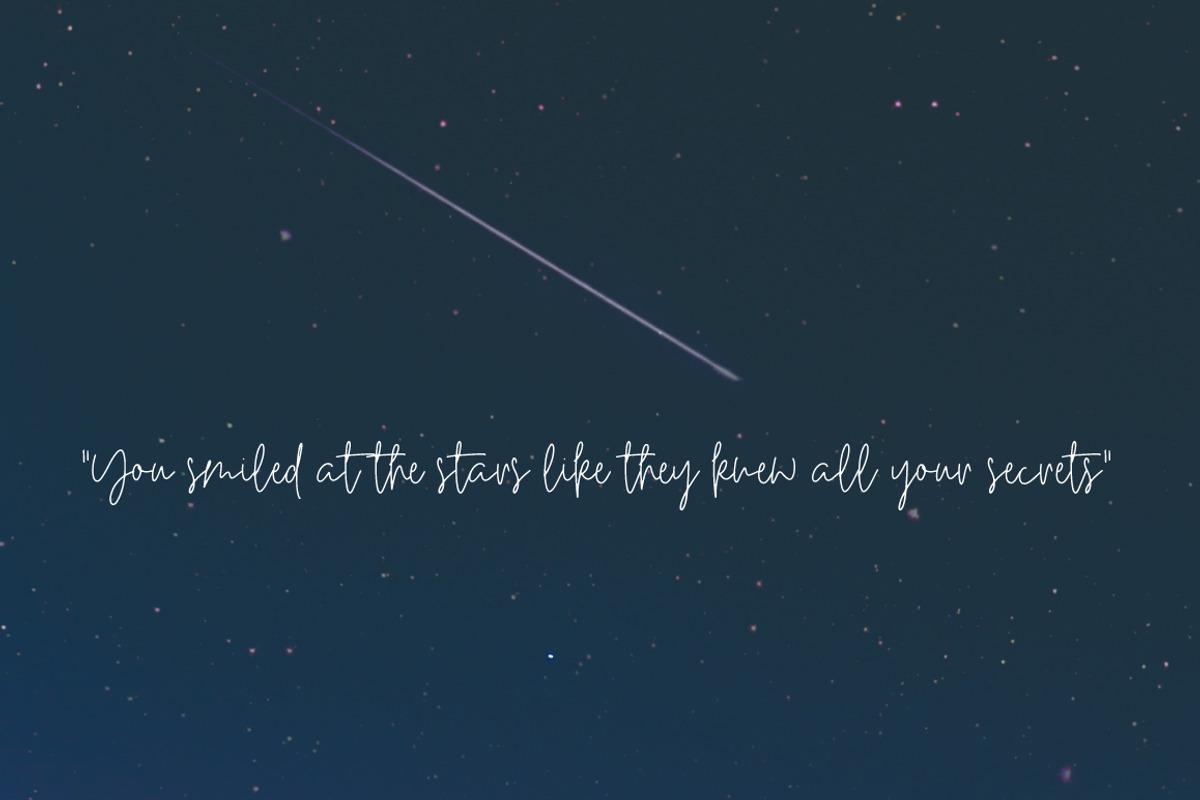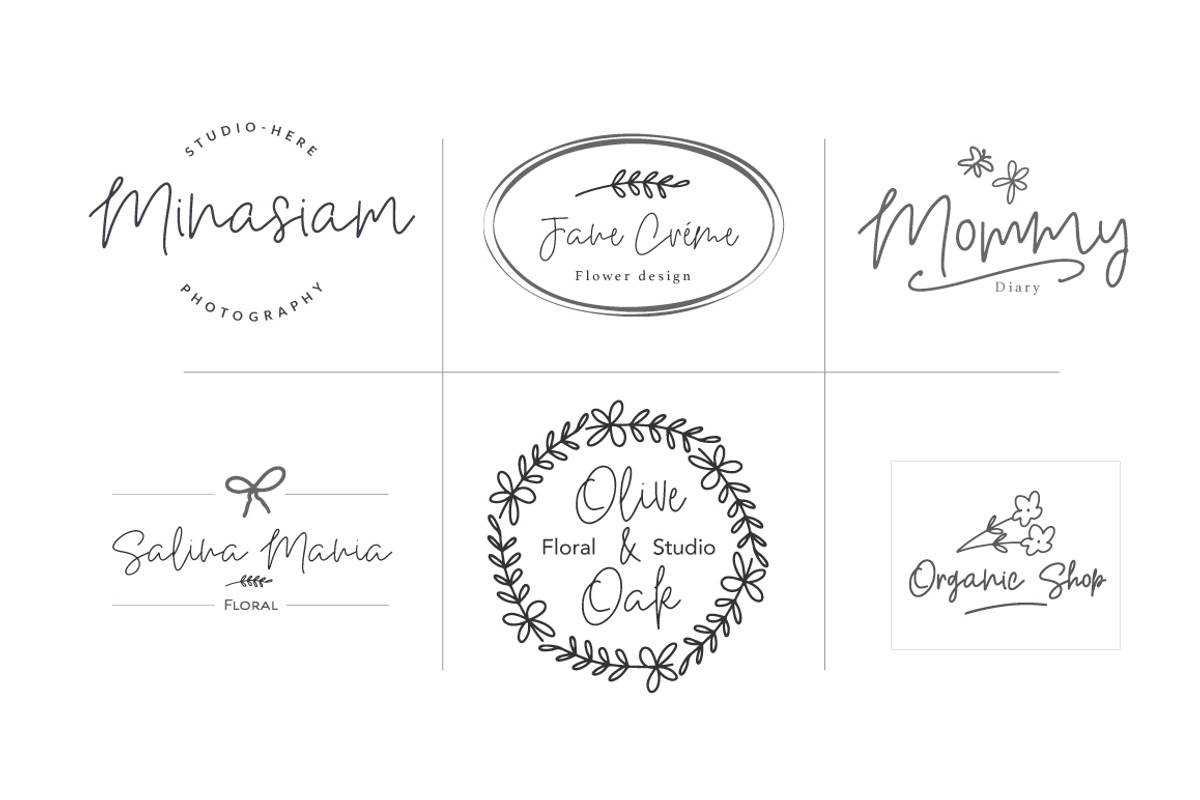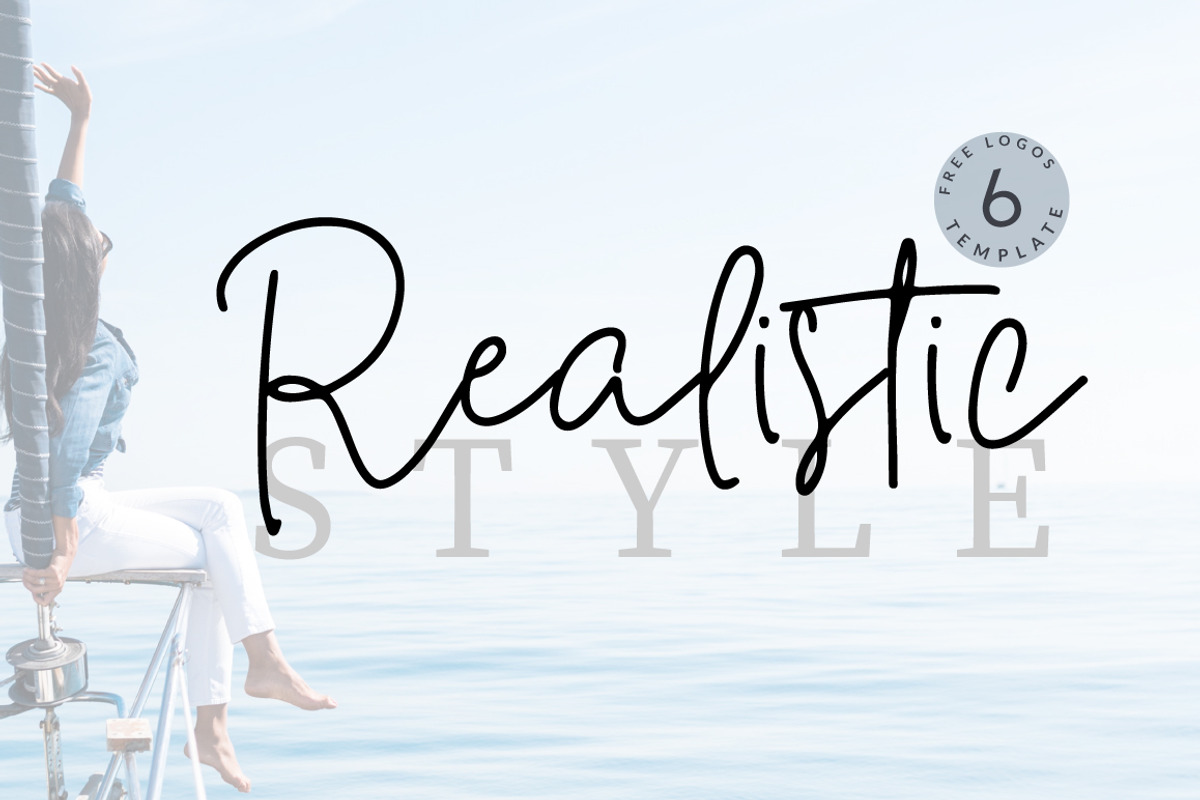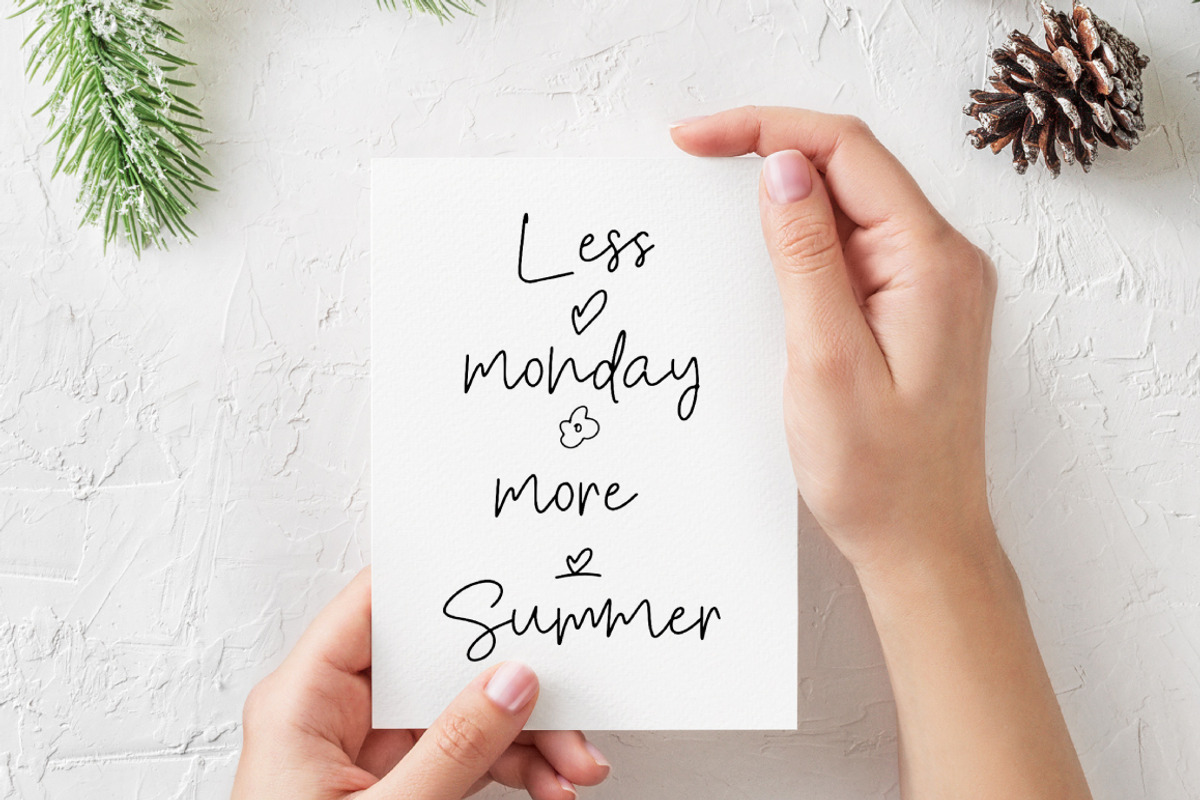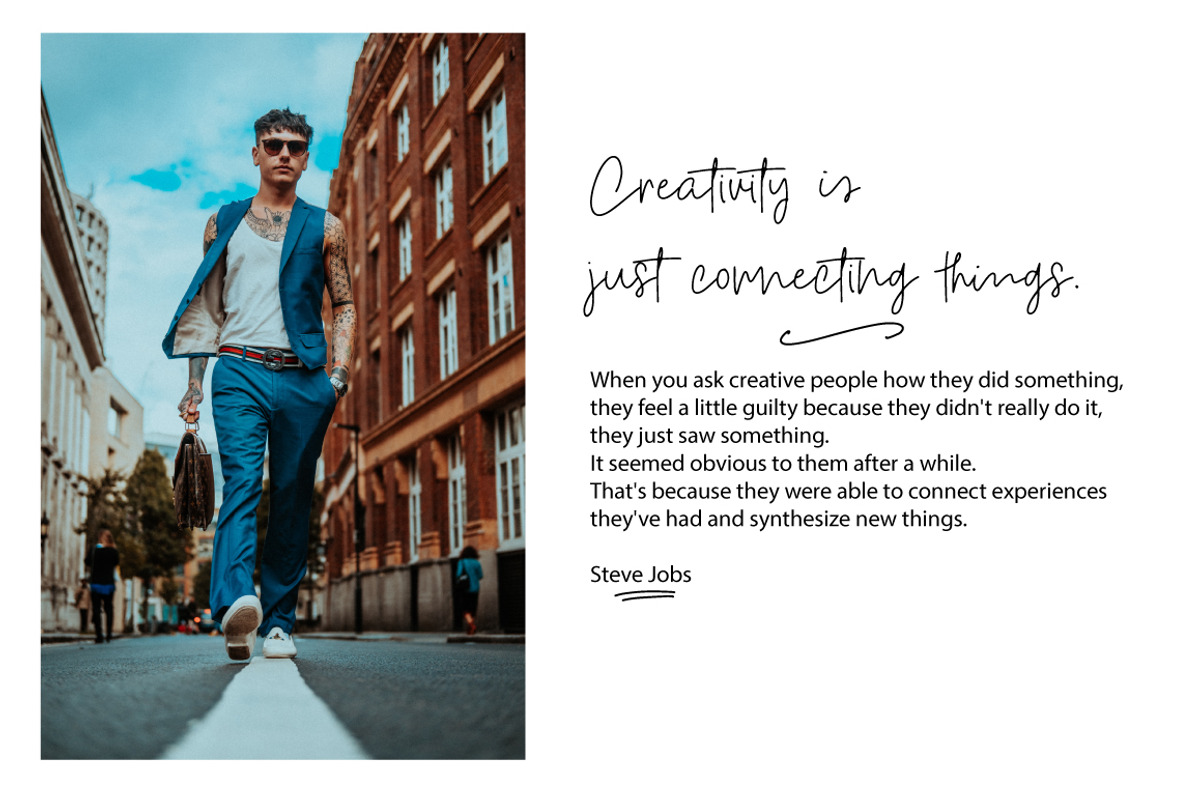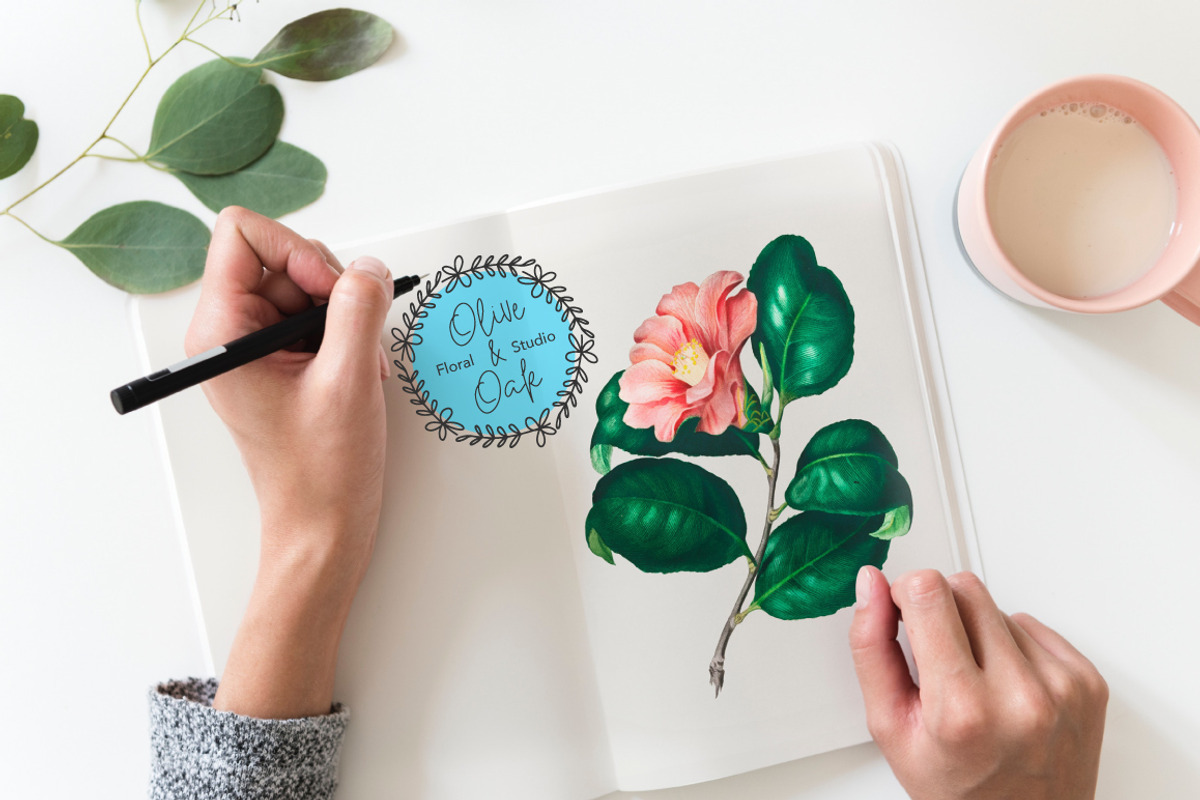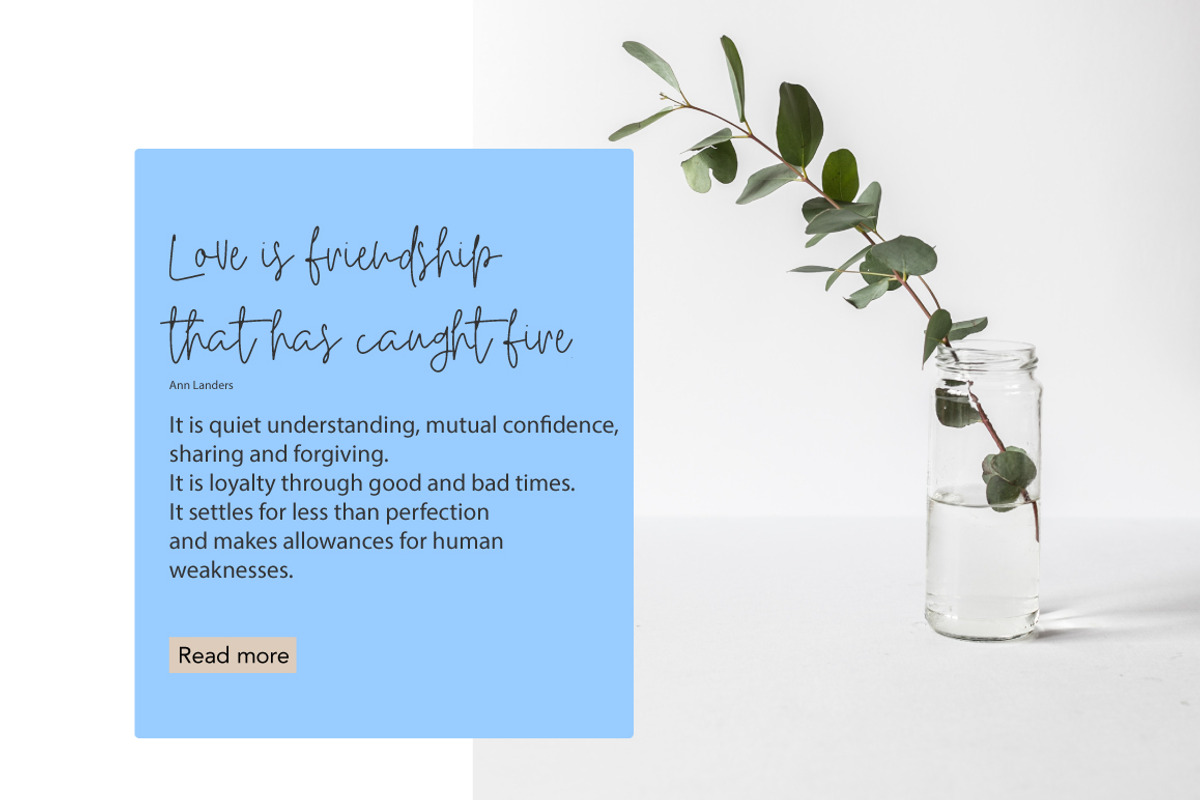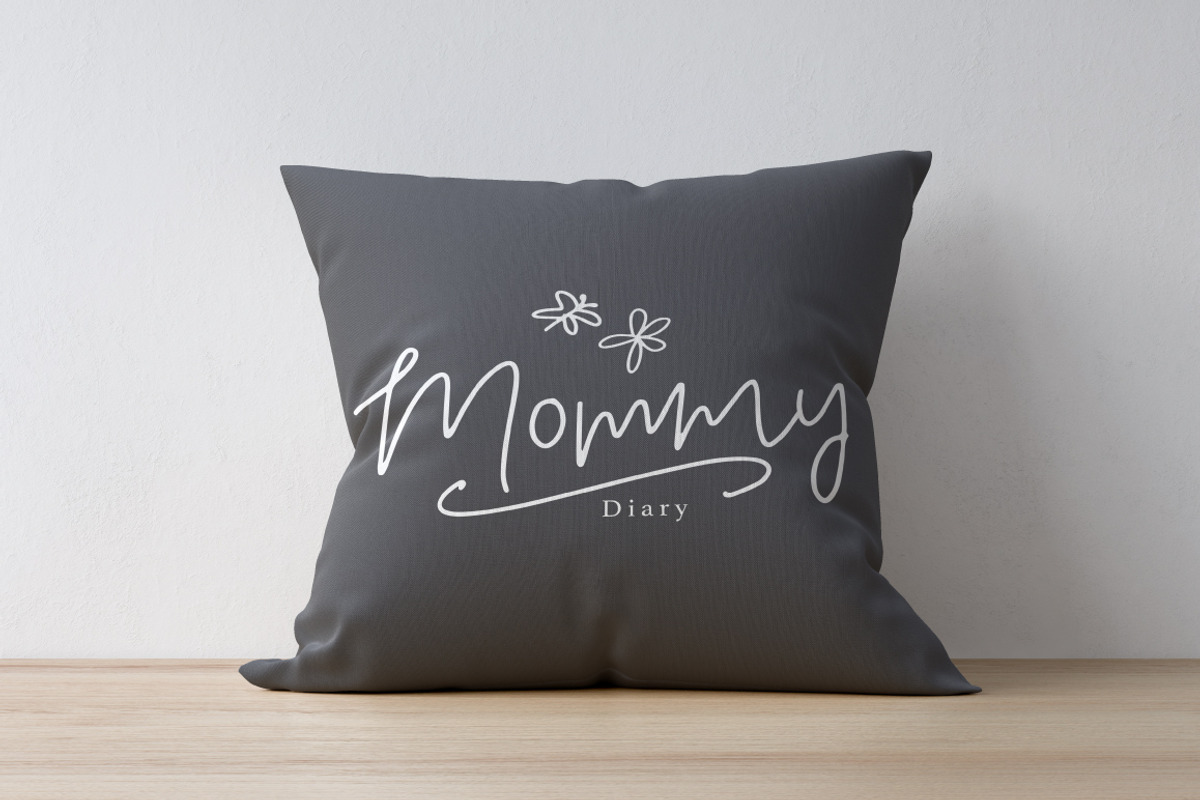
Realistic Style Font + 6 Logos
introducing Realistic Style font - A fashionable font perfect for high impact headlines
Every single letter has been creative carefully and Perfectly Playful new font pair. This font is a perfect script designed for making your set of invitations, Brand, blog posts, and more completely beautiful
The script has an alternate lowercase character set
And you get Ligatures
Realistic Style Font + 6 Logos by Artstudio fits naturally into Branding, posters, packaging, typography.